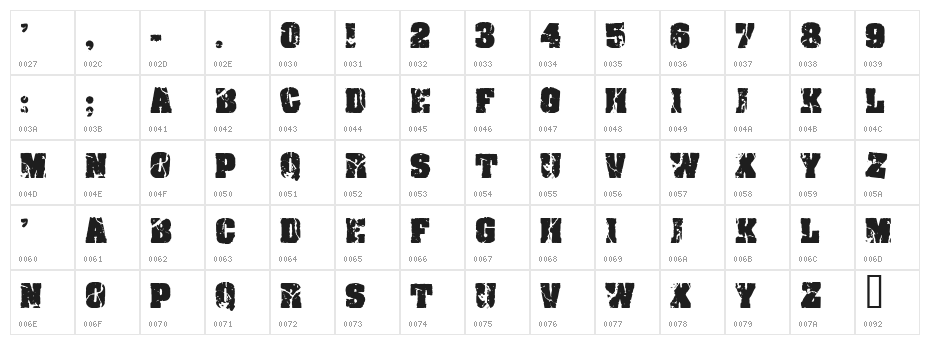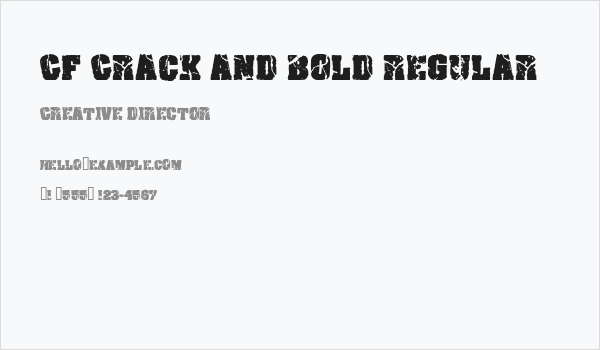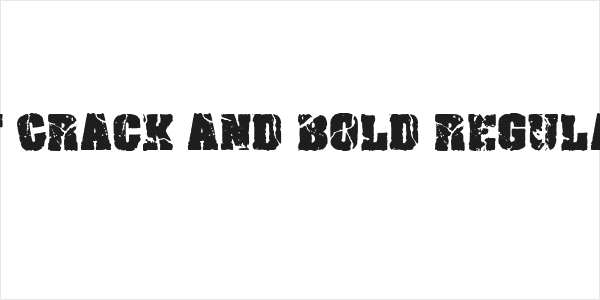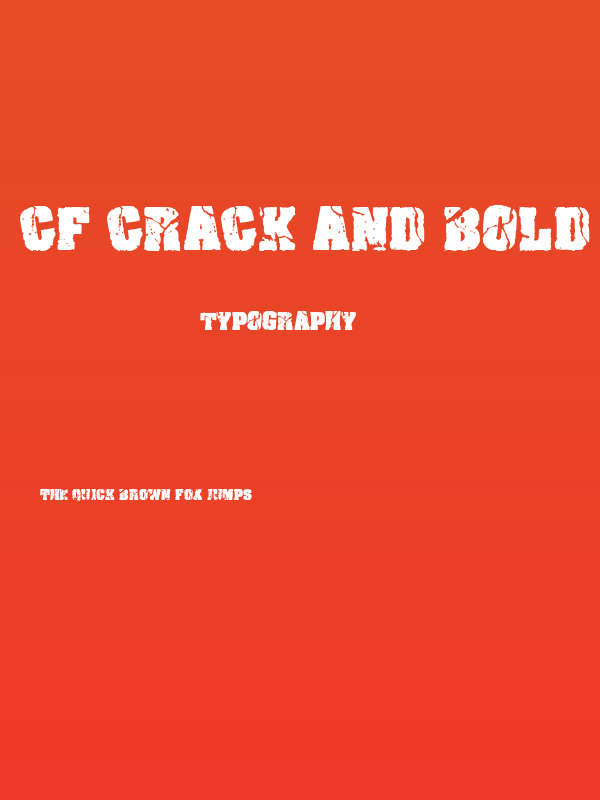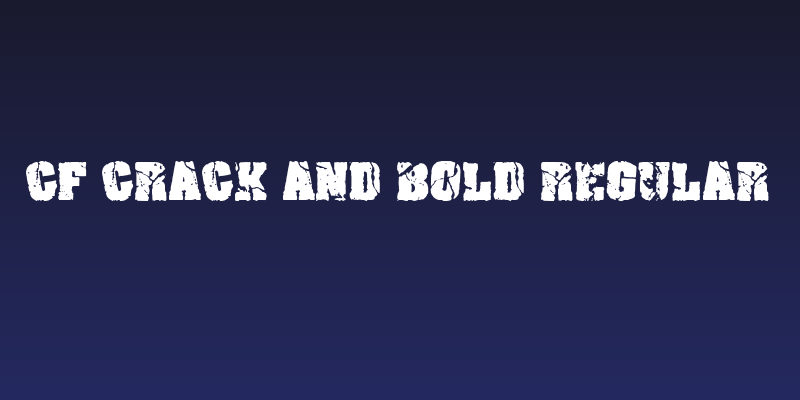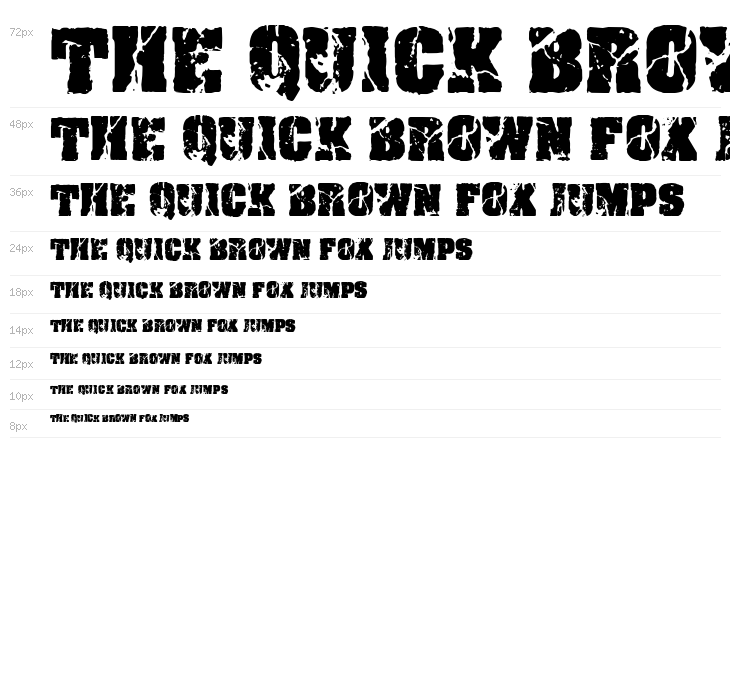
CF Crack and Bold Regular Font
CF Crack and Bold Regular Description
This font features a bold and rugged design with a distressed texture that gives it a cracked, worn appearance. The uppercase letters are prominent and impactful, making them ideal for attention-grabbing headlines. The numbers and special characters maintain the same distressed style, ensuring consistency throughout. The font's rough edges and uneven surfaces evoke a sense of vintage or grunge aesthetics, making it suitable for projects that require a bold, edgy look.
| Overall Style | Grunge, Vintage |
| Proposed Projects | Ideal for posters, album covers, branding for edgy products, or any design needing a bold, grunge aesthetic. |